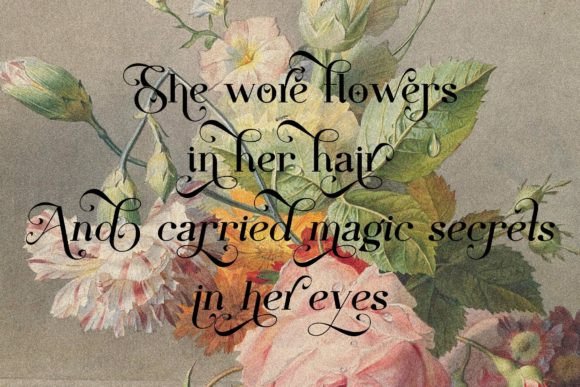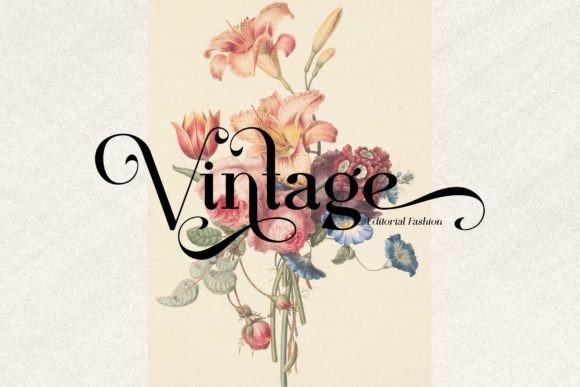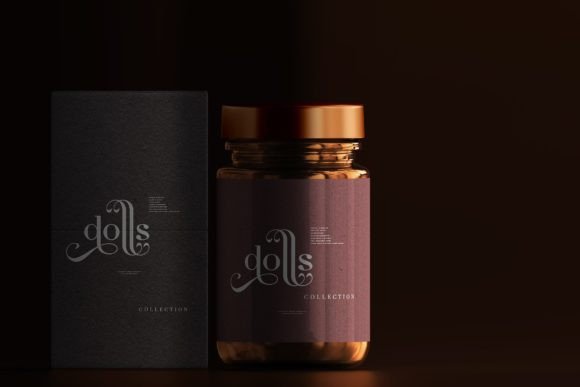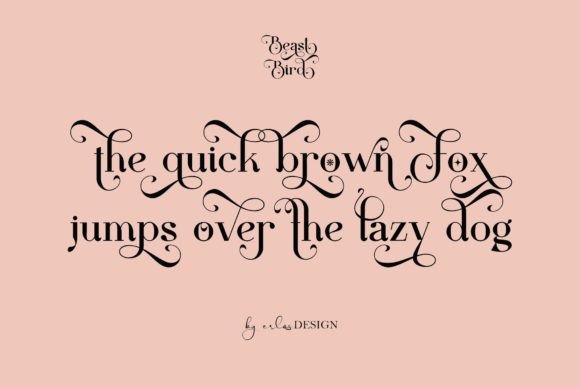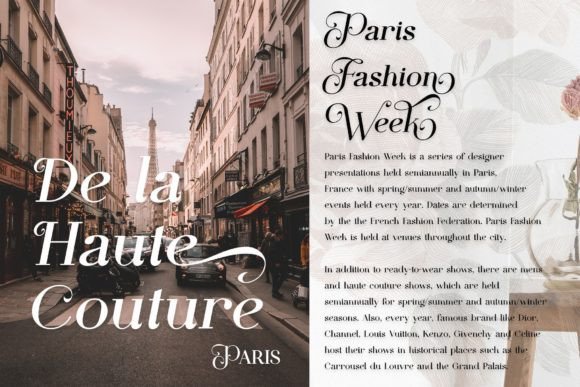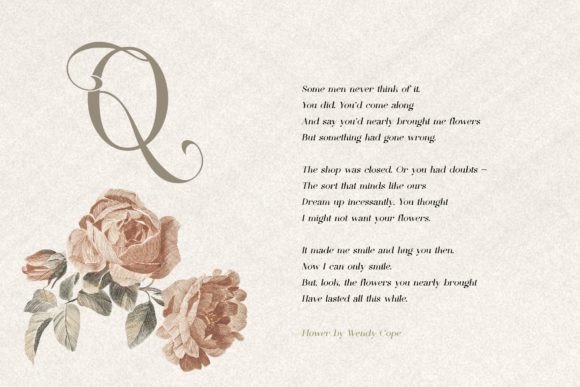
Unleash Your Creativity with the Majestic Beast Bird Font
There’s nothing quite like the rush of inspiration that comes when a design idea finally takes flight. You’re sitting at your desk, surrounded by scribbled notes and half-finished sketches, when suddenly it hits you – the perfect font to elevate your project to the next level. For many designers, that font is the Beast Bird Font, a majestic and elegant display serif that adds a touch of vintage sophistication to any design.
Whether you’re working on a logo, poster, or album cover, the Beast Bird Font is the perfect addition to your design arsenal. Its versatility and timeless charm make it a valuable asset for designers looking to add a touch of elegance to their work. With its perfect blend of vintage and modern styles, the Beast Bird Font is sure to make your designs stand out from the crowd.
Beast Bird Font Key Features
- Unique Characteristics: The font features a unique blend of organic and geometric elements, resulting in a distinctive and eye-catching design aesthetic.
Designer Review: Beast Bird Font
Overall, I think the Beast Bird Font has some unique and interesting aspects, but it also has some limitations that may not make it suitable for every project. Let’s dive in!
- The font has a quirky, hand-drawn feel that can add a lot of personality to a design.
- The bold and playful nature of the font makes it perfect for titles, headings, and other prominent text elements.
- The font comes in a range of weights and styles, making it easy to customize and match with other design elements.
- The font may be too ornate or distracting for certain types of text, such as body copy or lengthy paragraphs.
- The font’s quirks and irregularities may not be suitable for designs that require a high level of precision or consistency.
- The font may not be as readable in smaller sizes or at a distance.
In conclusion, the Beast Bird Font is a great choice for projects that need a bold, playful, and eye-catching font. However, it’s not suitable for every project, and designers should carefully consider the limitations before making a final decision.
Tips for Getting the Most Out of Beast Bird Font
Beast Bird Font is perfect for creating a unique and eye-catching look for your designs. Here are some tips to get the most out of it:
- Use it for headings and titles to add a touch of whimsy and personality to your designs.
- Pair it with other fonts to create a bold and eclectic look.
- Experiment with different font sizes and colors to create a visually appealing effect.
Beast Bird Font is perfect for a variety of designs, including:
- Graphic novels and comic books.
- Children’s books and educational materials
Alternatives to Beast Bird Font for Designers
Great Vibes is a modern, cursive font designed to evoke a sense of relaxation and calmness. It’s ideal for use in titles, headings, and body text where a touch of elegance is required.
Compared to Beast Bird Font, Great Vibes is more refined and polished, making it suitable for formal and informal projects alike. While Beast Bird Font has a more rustic feel, Great Vibes offers a smoother and more streamlined experience.